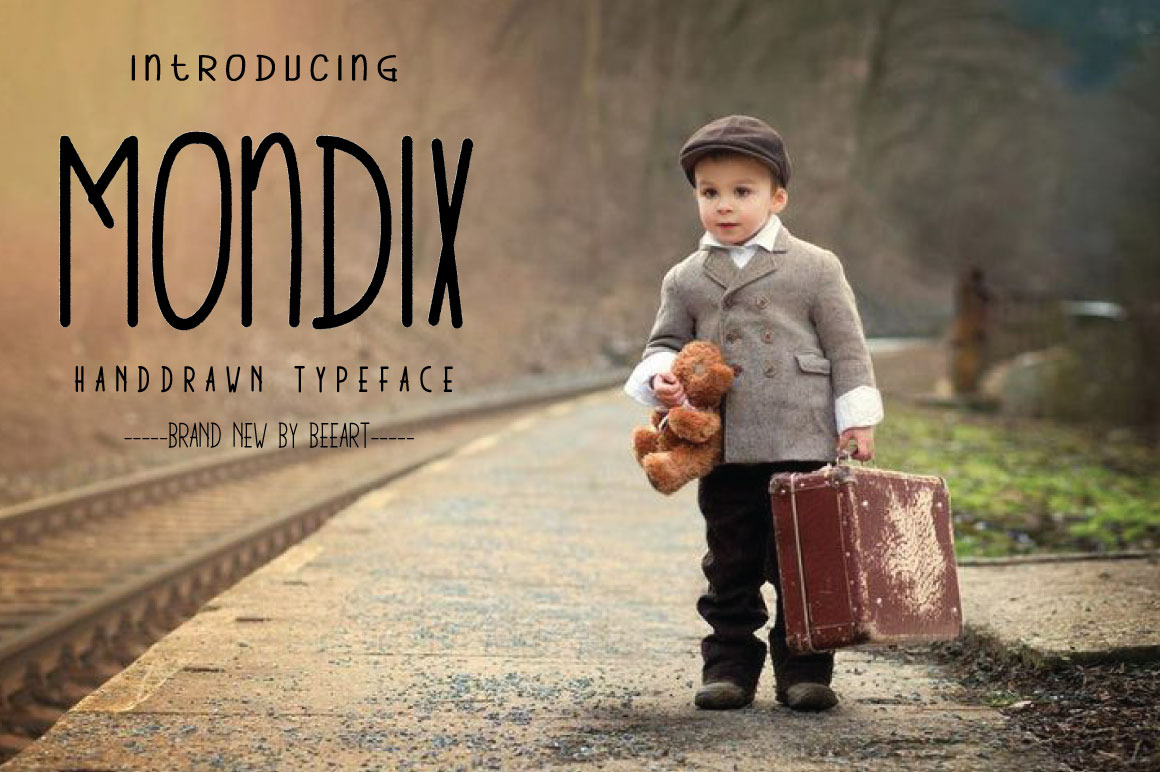
Mondix Typeface
Mondix is an awesome handwriting display. Suitable for wedding invitations, greeting cards, design of water-based paints, correspondence, and a variety of other purposes.